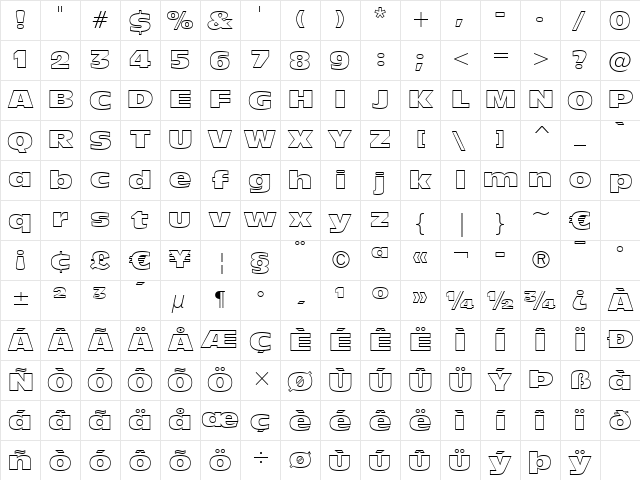
Incised901 NdOul BT Regular
Design Context for Incised901 NdOul BT
Incised901 NdOul BT is a composed and adaptable typeface that performs quietly and consistently across a wide range of design contexts.